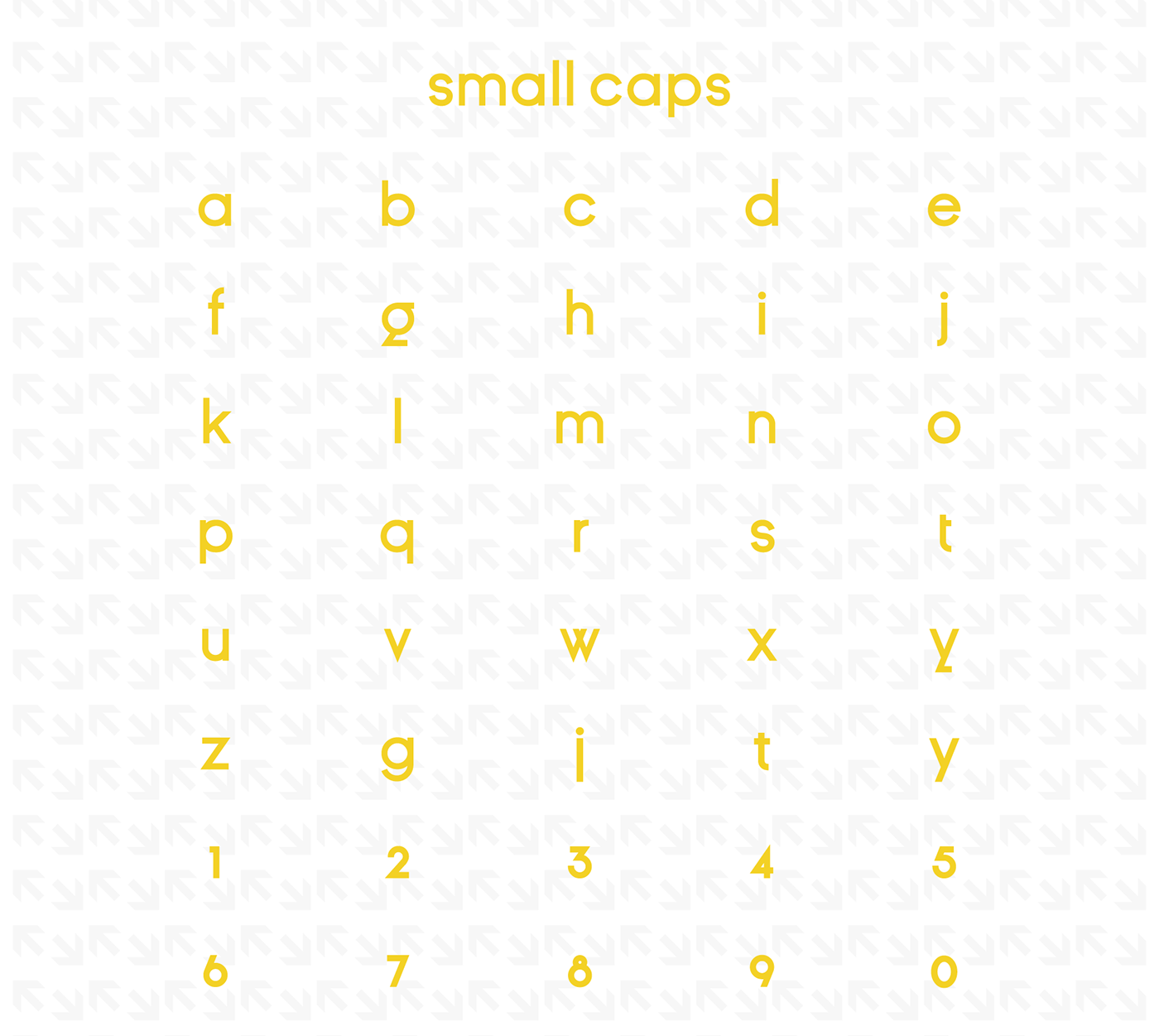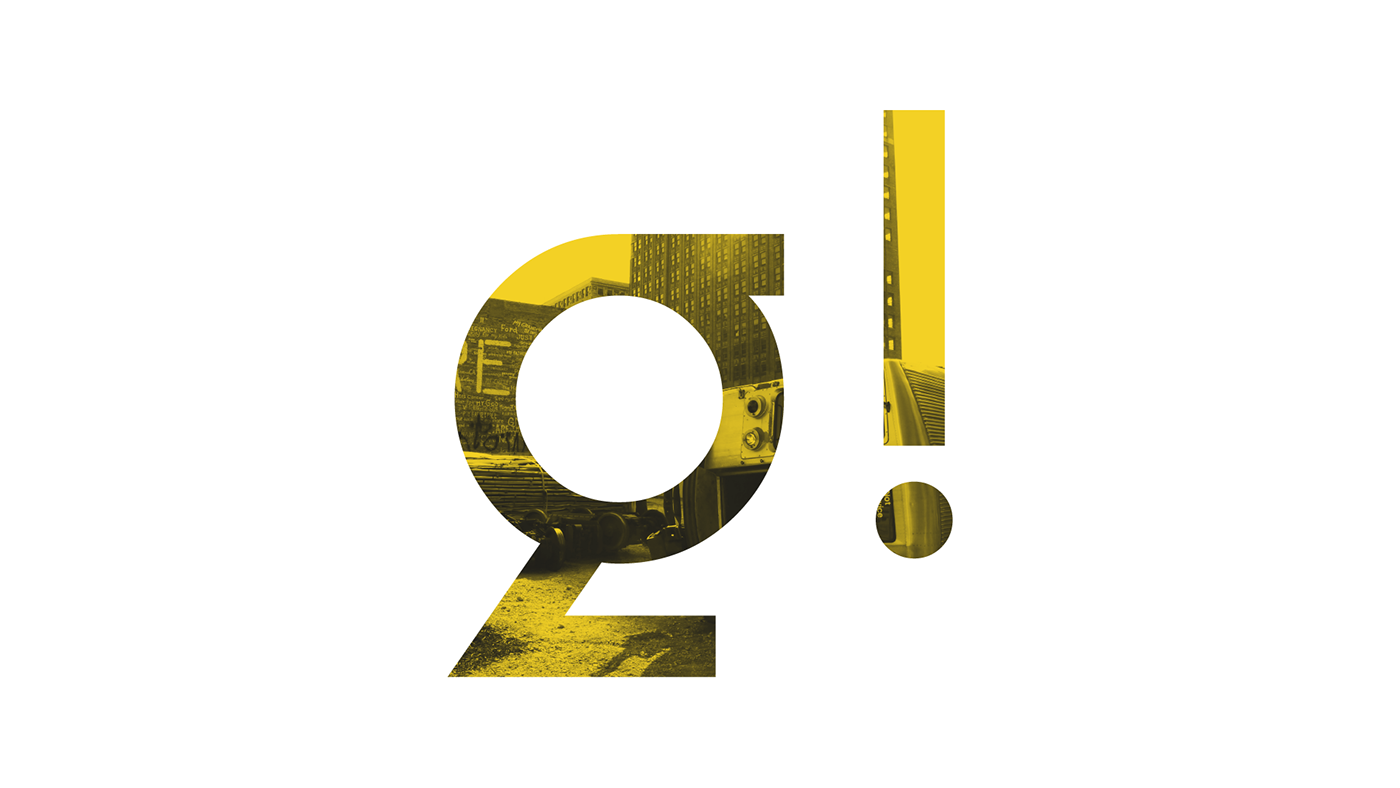
Ginora Sans Font Family
Ginora Sans Font Family is a meticulously designed monospaced typeface built to elevate the coding experience. With its tall x-height, elegant proportions, and precise spacing, it ensures maximum legibility during long development sessions. Every character is carefully crafted to create visual harmony and reduce eye strain, making it not just functional but also visually pleasing. Whether you’re writing clean scripts, debugging complex systems, or simply navigating lines of code, Block Mono offers a seamless blend of beauty and practicality—perfect for developers who appreciate both performance and design in their workspace.